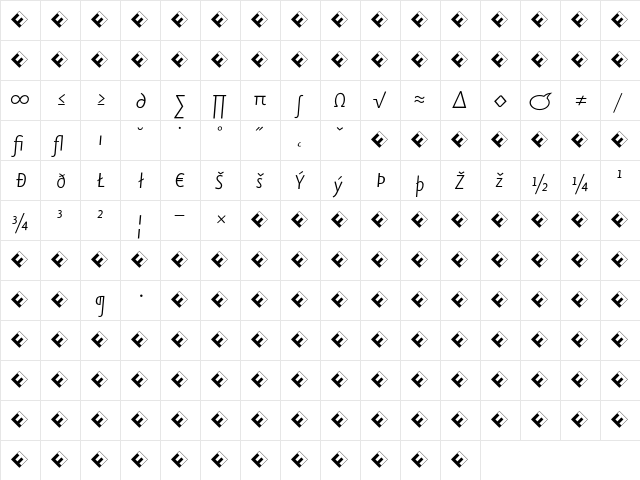
Eureka Sans Light Italic Exp
Design Context for Eureka Sans Typeface
Eureka Sans is a composed and adaptable typeface that performs quietly and consistently across a wide range of design contexts. The dynamic lean of this cut emphasises speed and emphasis in any layout. The delicate stroke weight brings airiness and refinement to layouts.
Pro Tip: Try Eureka Sans for annotation and caption copy alongside an upright companion — the contrast in angle creates a dynamic but ordered typographic system.